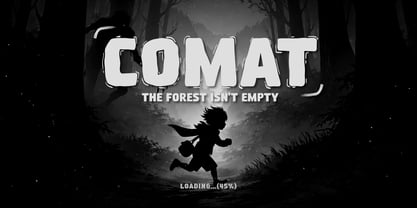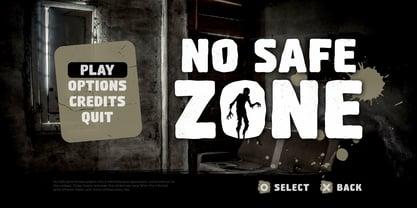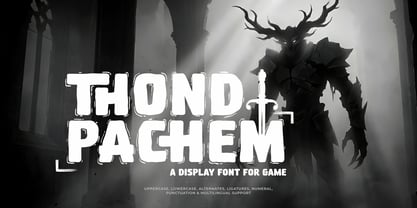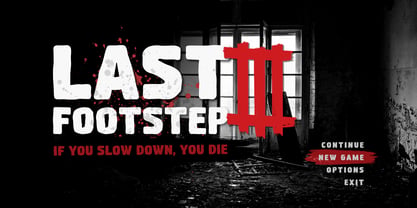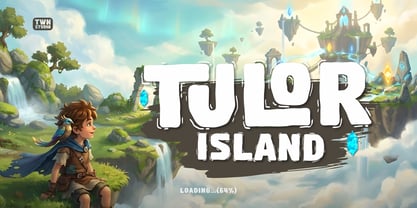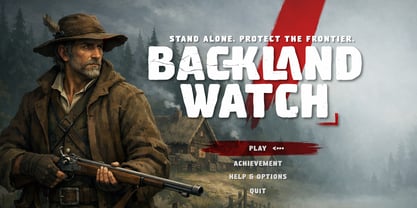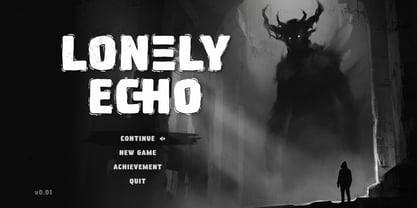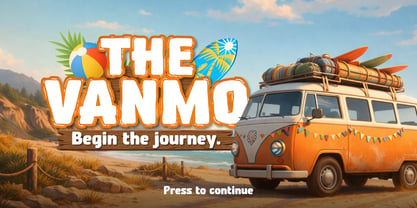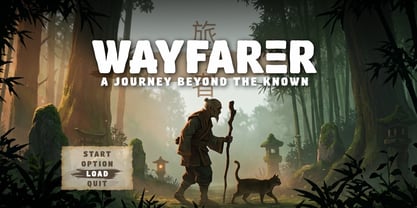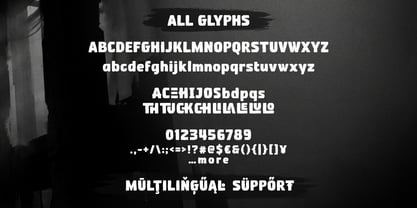
Thond Pachem is a bold game display font designed to deliver a strong visual presence with dramatic and powerful character shapes. Its solid structure and expressive style create a heroic, mystical, and intense atmosphere perfect for game titles and entertainment visuals.
This font brings fantasy worlds, epic adventures, and legendary battles to life through impactful letterforms that remain clear and readable at various sizes. Each character is crafted to support immersive storytelling visuals.
Thond Pachem is ideal for game posters, covers, headlines, logos, and promotional designs with adventure, monster, and legend themes, making it a strong choice for creative and entertainment-focused projects.
- All glyphs and Feature
Thond Pachem